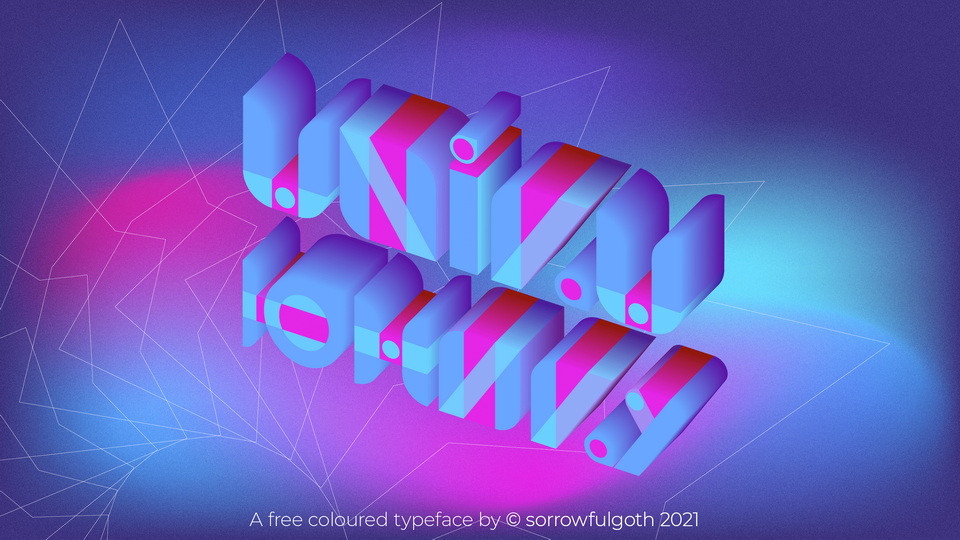
Download Uniku font, an experimental colored display typeface inspired by Manfred Klein and Wim Crouwel, futuristic shapes and unusual writing. Uniku font was designed so that you can change the color to whatever you want.